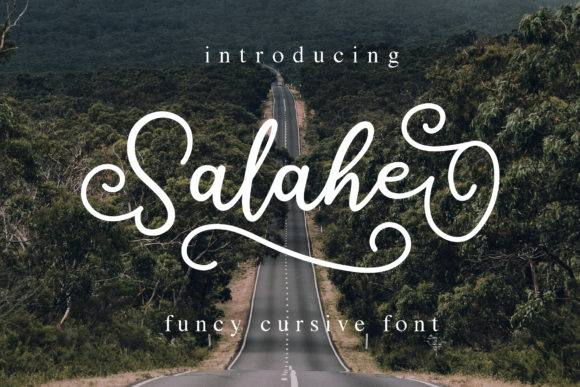
Feast your eyes upon the exquisite Salahe Font, a mesmerizing creation from the visionary artists at alphArt. This captivating script font beckons you into a world of elegance and charm, with its graceful curves and sweeping strokes that evoke a sense of timeless beauty. Salahe is a symphony of lines, each stroke flowing seamlessly into the next, creating an enchanting dance of letters that will leave you breathless. Step into the enchanting world of Salahe, where creativity knows no bounds and beauty reigns supreme. Its alluring presence will cast a spell on your designs, captivating your audience and leaving them in awe.
With Salahe, you hold the key to unlocking a world of endless possibilities. Its versatile nature makes it the perfect companion for a myriad of design projects. Envision your designs adorned with Salahe's graceful presence – from enchanting envelopes and logos to captivating typography and branding. Let your imagination soar as you craft stunning greeting cards, printed quotes, and invitations that radiate an aura of sophistication. Salahe's charm extends to product packaging, where it transforms ordinary boxes into works of art. Headers, logotypes, and letterheads become canvases for Salahe's artistry, adding a touch of elegance to your business correspondence.
Unleash your inner artist and explore the boundless creative possibilities with Salahe. Let its delicate strokes enhance your clothing designs, creating garments that whisper stories of elegance and grace. From intricate labels to captivating posters, Salahe's versatility knows no limits. Its ability to evoke emotions and create lasting impressions makes it an ideal choice for marketing campaigns and branding initiatives.
Salahe is more than just a font; it is an experience. Its captivating presence will transport you to a world where creativity flourishes and dreams come to life. Embrace Salahe's allure and let your designs shine with a brilliance that will leave an indelible mark on the hearts of your audience.